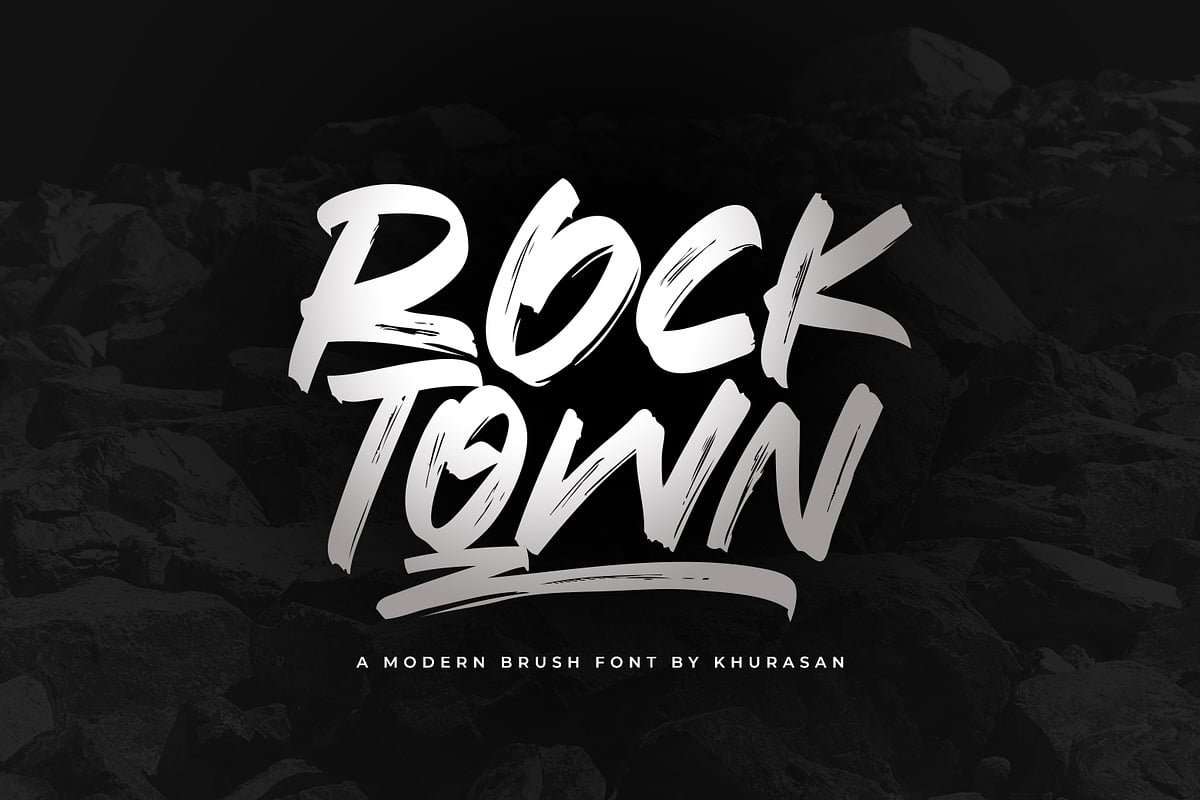
Rocktown Brush Font
Make your designs rock with this bold, modern brush font that commands attention. Rocktown brings edgy, contemporary style to your creative projects with its dynamic brush-inspired letterforms. This versatile typeface delivers the perfect balance of urban grit and modern sophistication. Perfect for logo design, brand identity, greeting cards, posters, and any project that needs to make a statement. The font's bold character and artistic flair will elevate your creative vision. Files included: Ro...